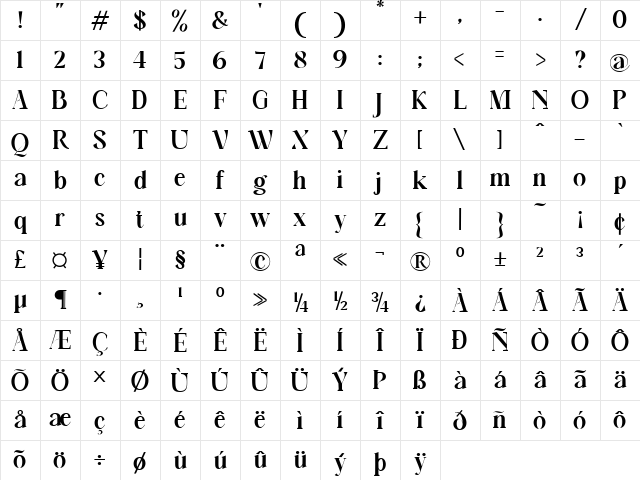
Complete Balgon Serif Regular glyph index. Displaying only characters natively supported by Balgon Serif Regular font.
Balgon Serif carries the refined structure of traditional serif typography, with bracketed terminals and considered proportions that communicate credibility and craft.
Pro Tip: Use Balgon Serif for editorial body copy and considered headline work. Pair with a neutral sans for UI elements or captions to create a classic hierarchy.